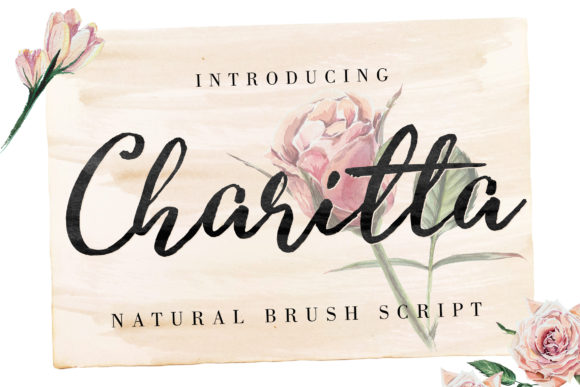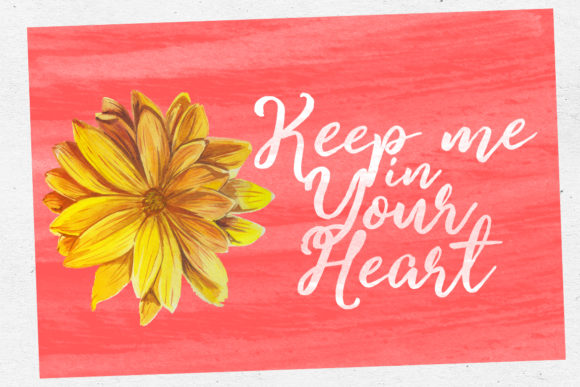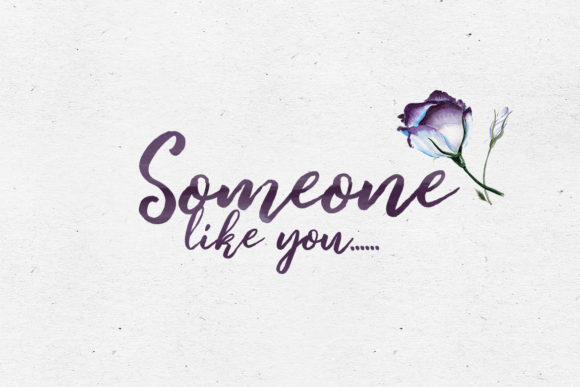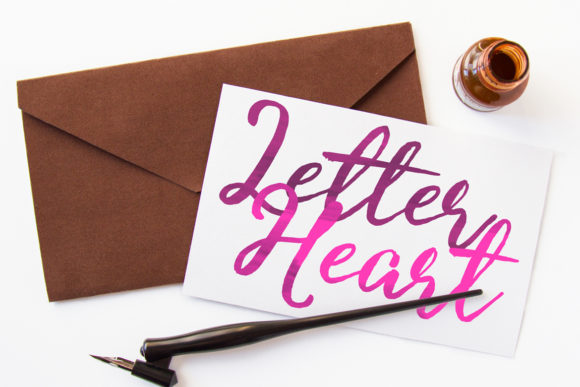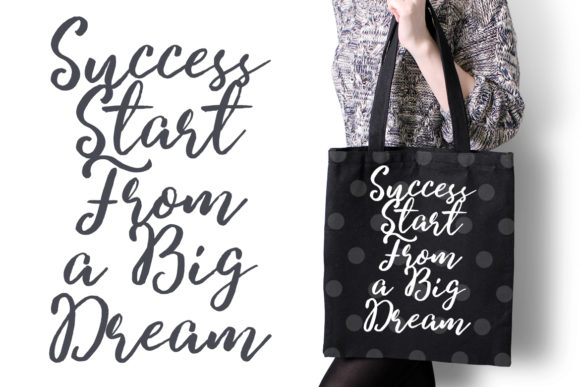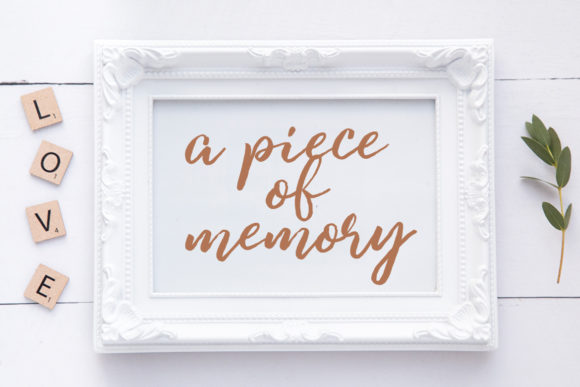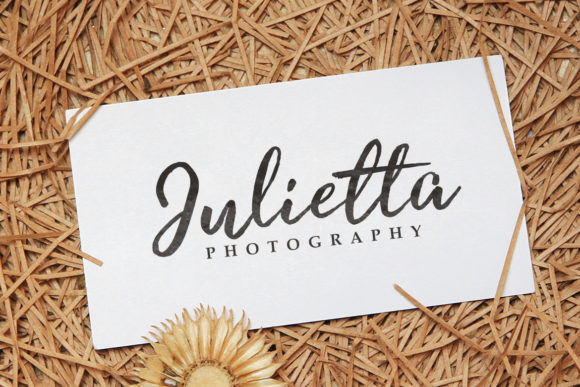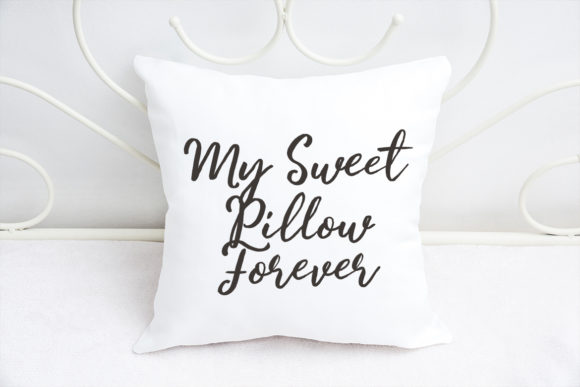
Charitta Font
About Charitta Font
Charitta is a beautiful, down-to-earth handwritten font with an organic feel. Get inspired, and use it for any design project that needs a personal touch.